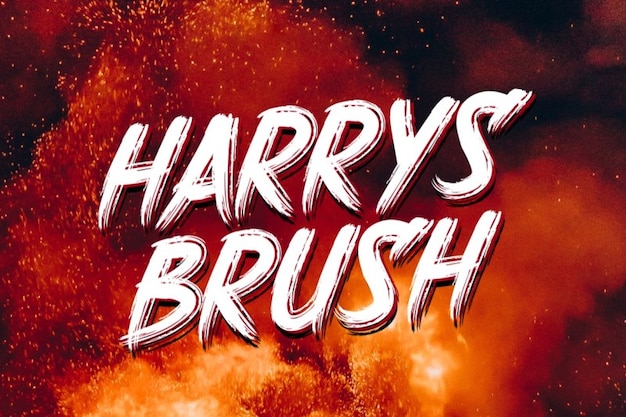
Harrys Brush Font
Majestype
Harry's Brush font blazes with the fiery passion of handwritten artistry. Each letter is a stroke of creativity, igniting your text with a raw, expressive energy that's impossible to ignore. Whether it's for a bold statement or an artistic project, Harry's Brush brings the heat, turning your words into a fiery masterpiece. It's the font that sets your creativity ablaze, adding a touch of artistic fervor to every character.